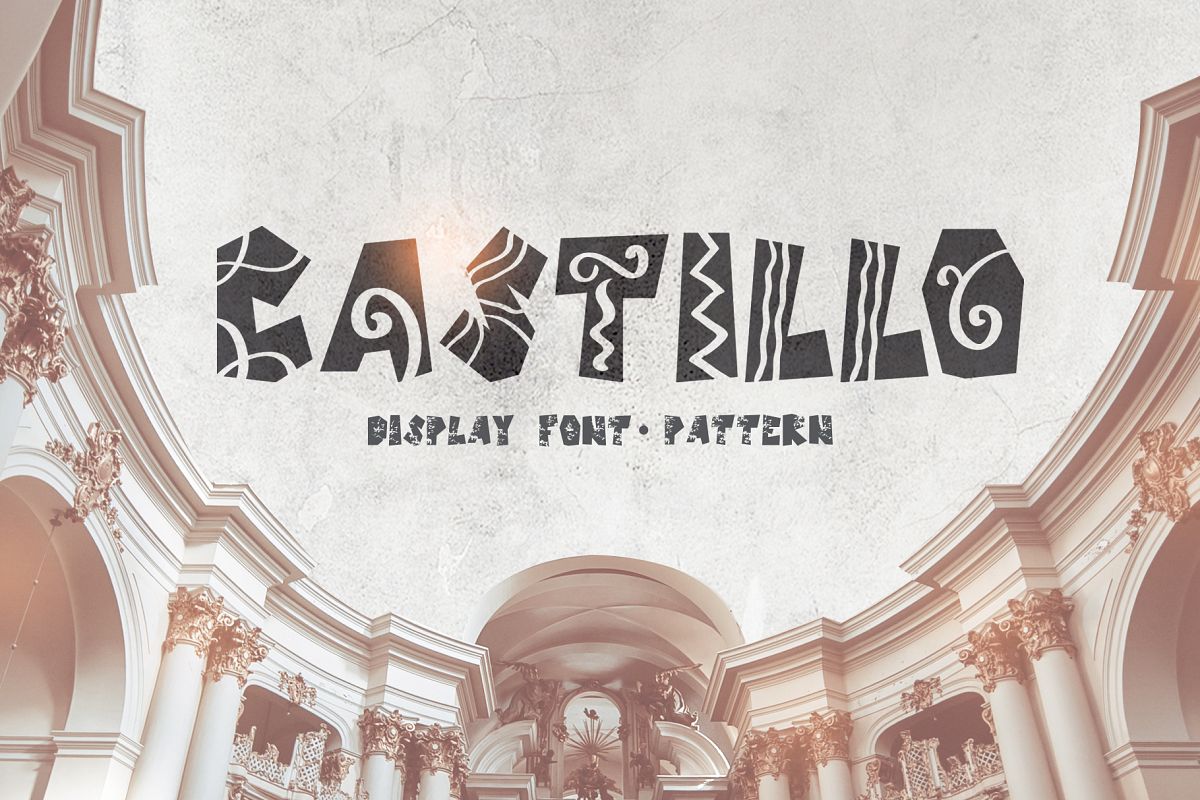
Castillo Scandinavian Font & Pattern
A striking antique modern display font in four styles.
Castillo is the font is to help yourself while enjoying the world.
Castillo Scandinavian is Regular, Italic, Bold and Bold Italic unique handmade font which is well suited for the design of children's books, comics, antique subjects, other.